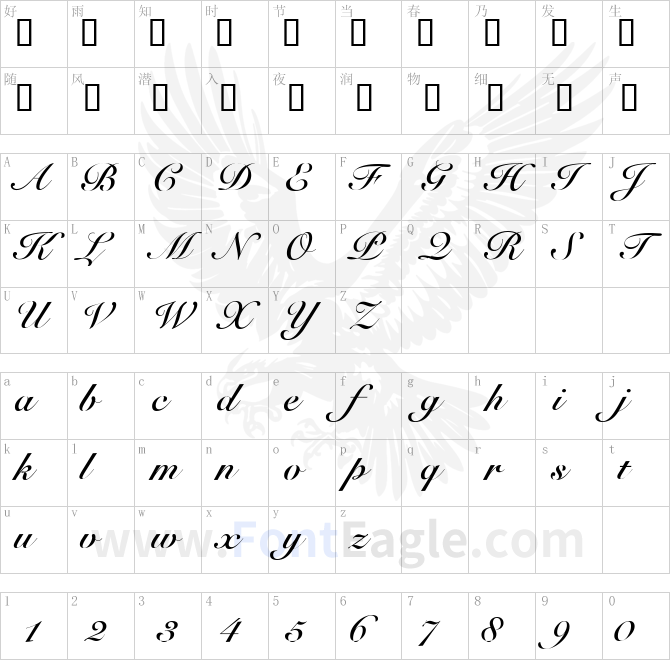
- Font name:SnellRoundhandScript
- Font Subfamily: Bold
- Font Full Name:SnellRoundhandScript Bold
SnellRoundhandScript-Bold is a great font, widely used in graphic design, single-page menu design, poster design and other fields, and is deeply loved by designers.SnellRoundhandScript-Bold download.